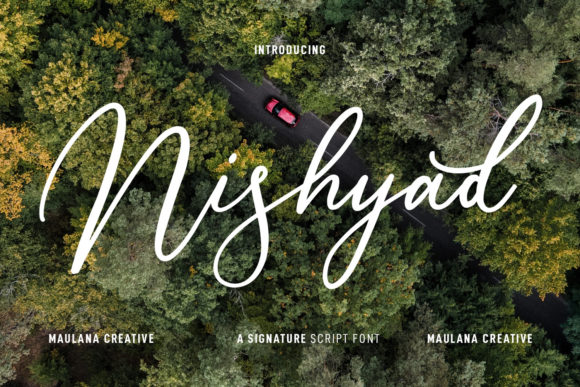
About Nishyad Script Font
Nishyad Script is a unique signature script font. It features regular contrast strokes, fun characters, ligatures and alternates. Add this gorgeous looking font to each of your love letters, wedding invitations or favorite design ideas, and you will be astounded by the outcome.Â